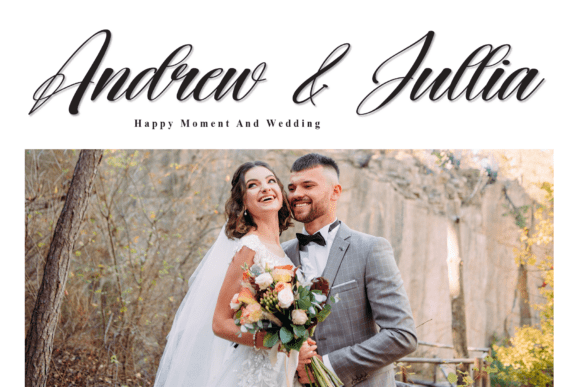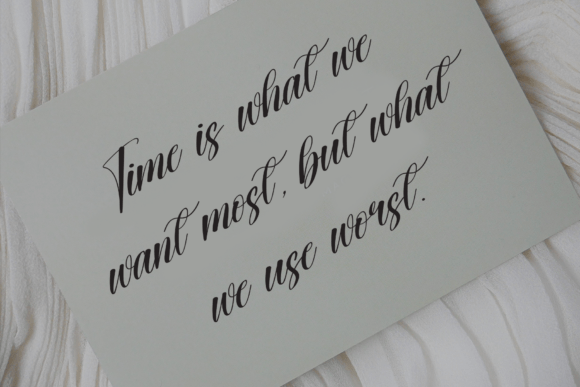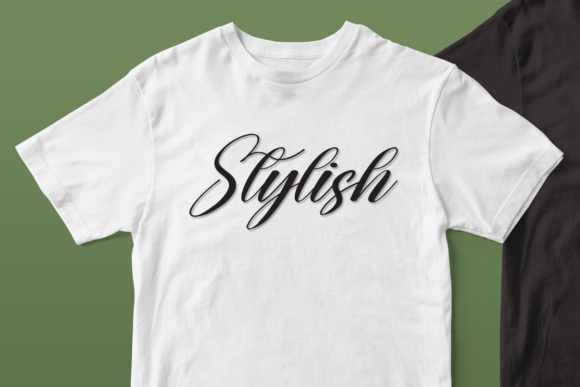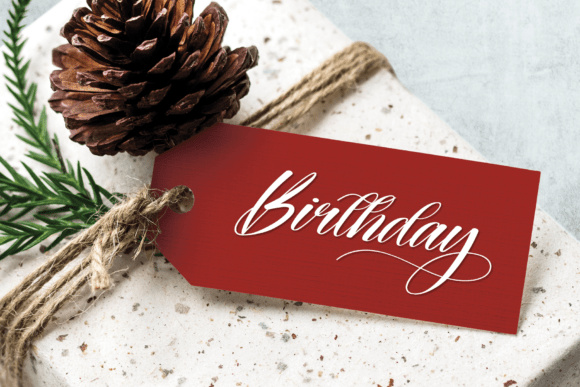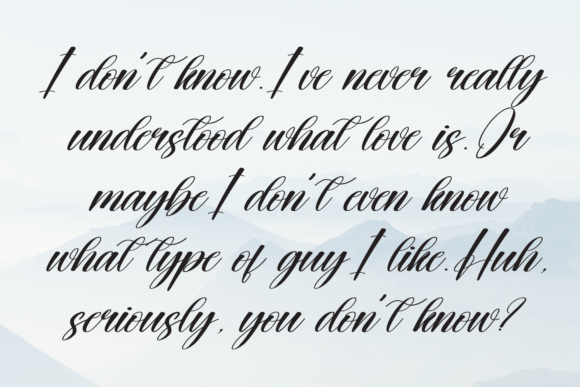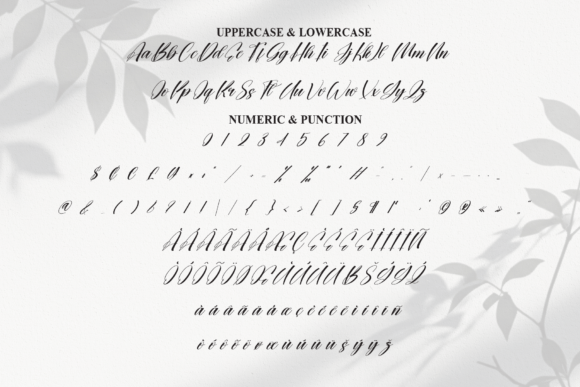
Introducing Floating Font: The Sweetest Handwritten Display Font
Have you ever been working on a design project, and suddenly, you’re stuck on finding the perfect font? I recall a particularly frustrating moment when I was designing a wedding invitation for a dear friend. The design was almost complete, but the font just wasn’t right. It was either too formal, too boring, or just not capturing the playful, joyful vibe of the couple. That’s when I stumbled upon Floating Font, and it was love at first sight! 💕
The Perfect Blend of Whimsy and Warmth
Floating Font is a charmingly warm and approachable handwritten display font that exudes sweetness and amiability. It’s designed to capture the whimsical joy of fun-filled moments, making it quintessentially perfect for adding that delightful flicker to wedding invitations, heartwarming cards, or any creative design that craves a dash of playfulness. With this font, your design presents not just words, but a whole lot of personality! 🎉
- ✨ The font’s unique, hand-crafted feel makes it stand out from more generic fonts.
- ✅ It’s incredibly versatile and can be used for a wide range of design projects, from digital to print.
- 💖 The font’s warm and playful personality shines through in every letter, making it perfect for designs that require a personal touch.
While Floating Font is an amazing addition to any design project, there are a few things to keep in mind: 🤔
- ⚠️ Some of the more intricate details may not render well at very small font sizes.
- ⚠️ As with any handwritten font, it may not be the best choice for body text or lengthy paragraphs.
The Designer Inspiration Behind Floating Font
Floating Font was designed with the intention of capturing the joy and playfulness of handwritten text. The designer, inspired by the beauty of imperfect handwriting, aimed to create a font that would bring a smile to the viewer’s face. With its unique, hand-crafted feel, Floating Font is sure to add a touch of personality to any design project.
Q: What makes Floating Font unique?
A: Floating Font’s unique, hand-crafted feel and warm personality make it stand out from more generic fonts.
Q: Is Floating Font suitable for body text?
A: While Floating Font is an amazing display font, it may not be the best choice for body text or lengthy paragraphs due to its handwritten nature.